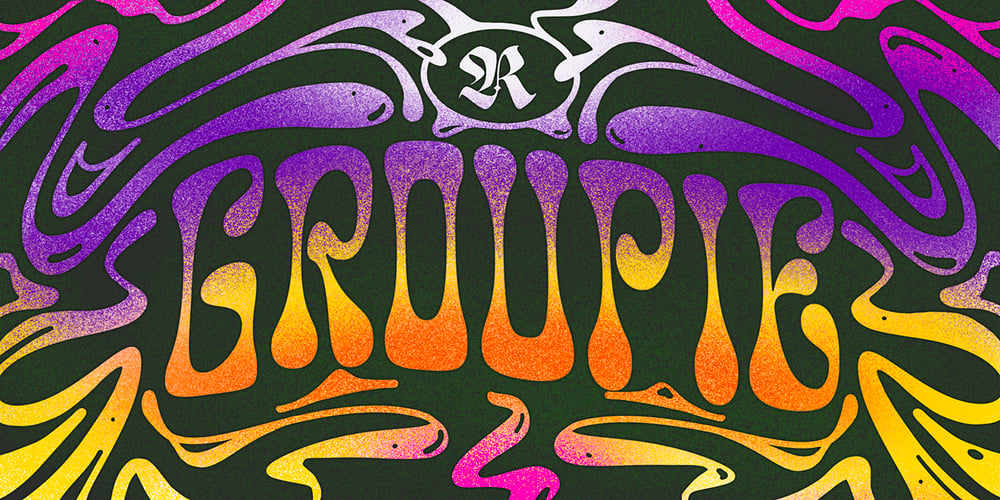
Groupie Font Family was designed by Giuseppe Salerno, Paco González and published by Resistenza. Groupie contains 2 styles and family package options. The idea was to mix liberty lettering with 70’s psychedelic posters and dedicate a font to Groupies.Check out the alternative glyphs and icons included.Have fun and be a Groupie